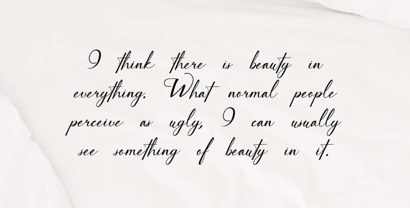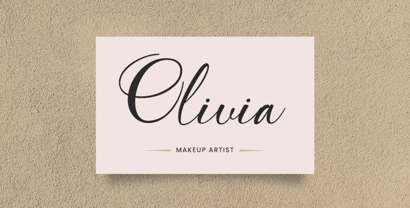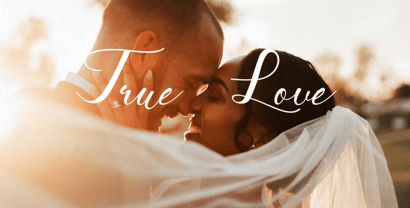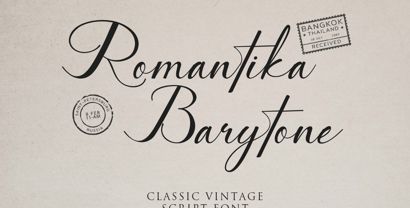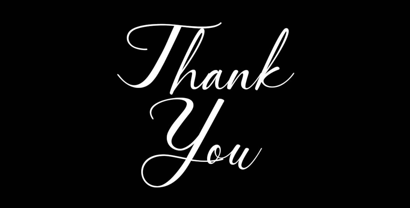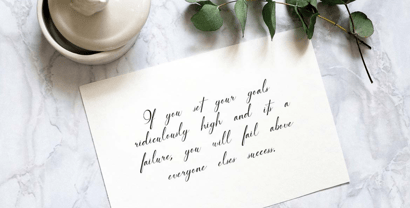
Romantika Barytone
The Romantika Barytone Font Family was designed by Hero and published by UICreative. Romantika Barytone contains 1 styles. More about this family
Romantika Barytone Classy Vintage Script Font. The modern display font feels beautiful classy, elegant, and stylish. This font is ideally suited for a wide variety of projects, such as signature, stationery, logo, wedding, typography quotes, magazine or book covers, website headers, branding, and more. Also, fashion-related branding or editorial design displays both masculine and feminine qualities.